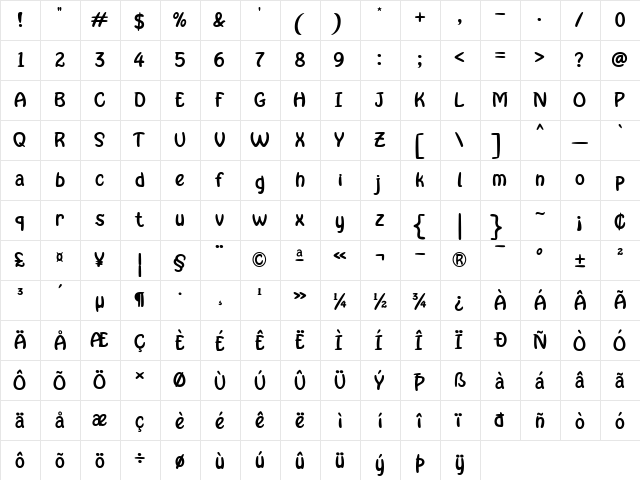
Misellia And Friend Regular
| Foundry | 7NTypes |
| Designer | Dreamink; Dani; Situjuh Nazara |
Design Context for Misellia And Friend Typeface
Misellia And Friend is a composed and adaptable typeface that performs quietly and consistently across a wide range of design contexts.